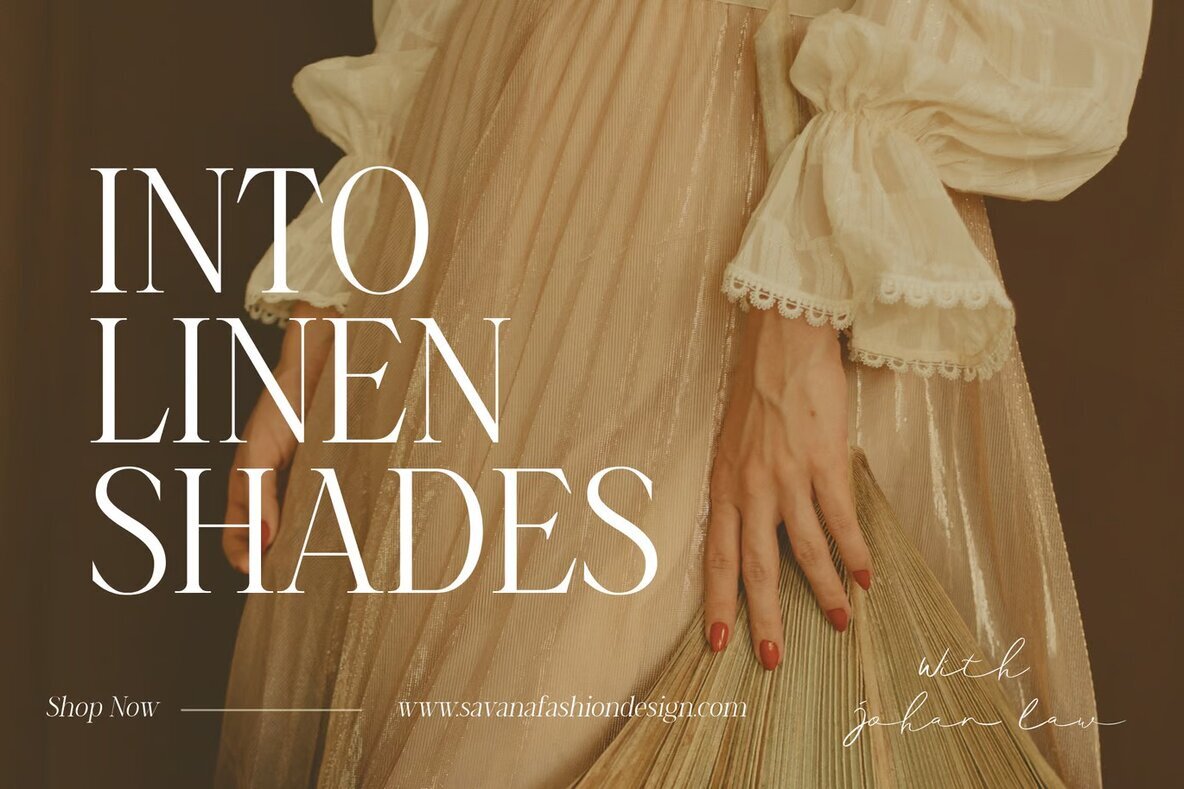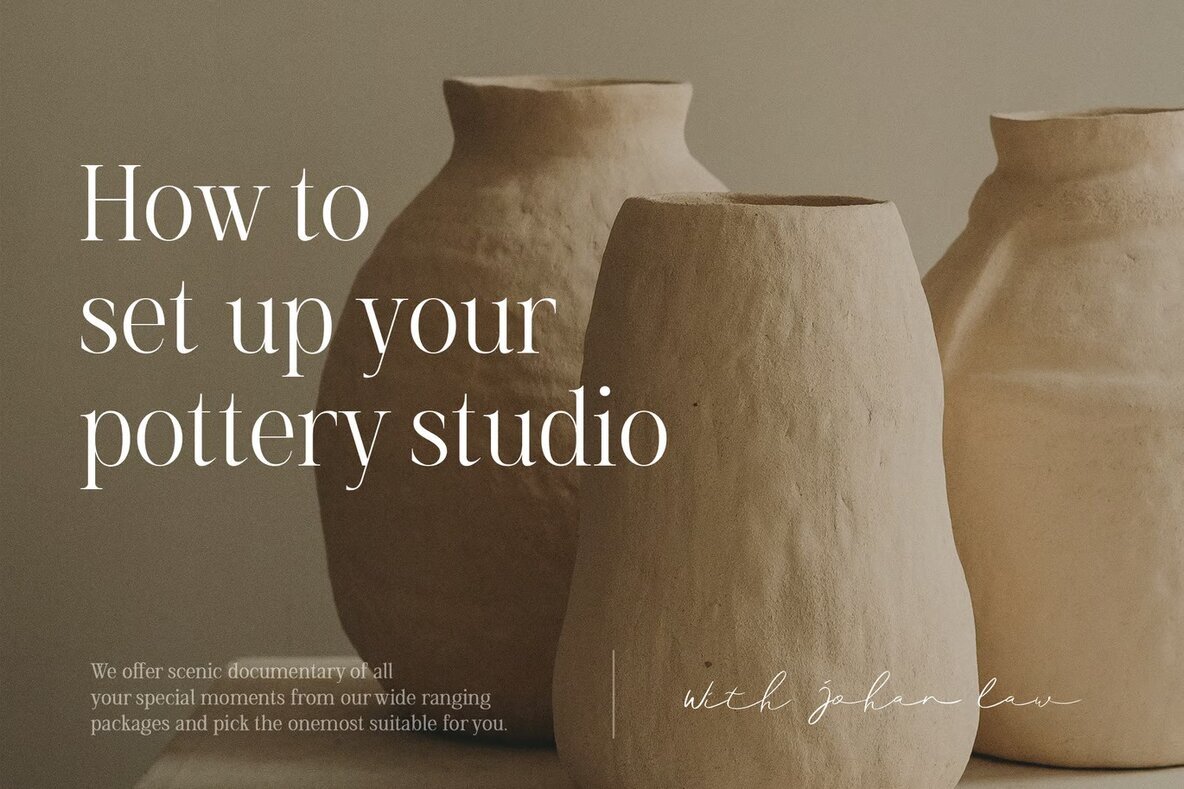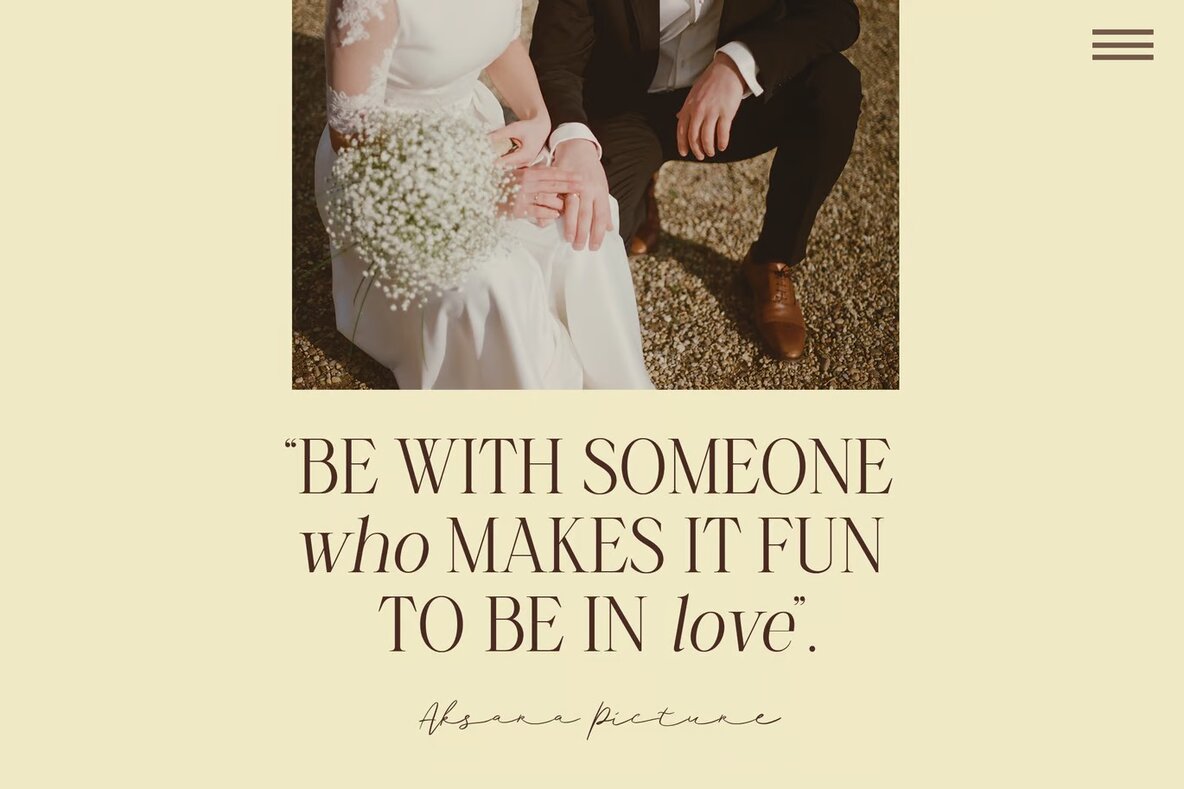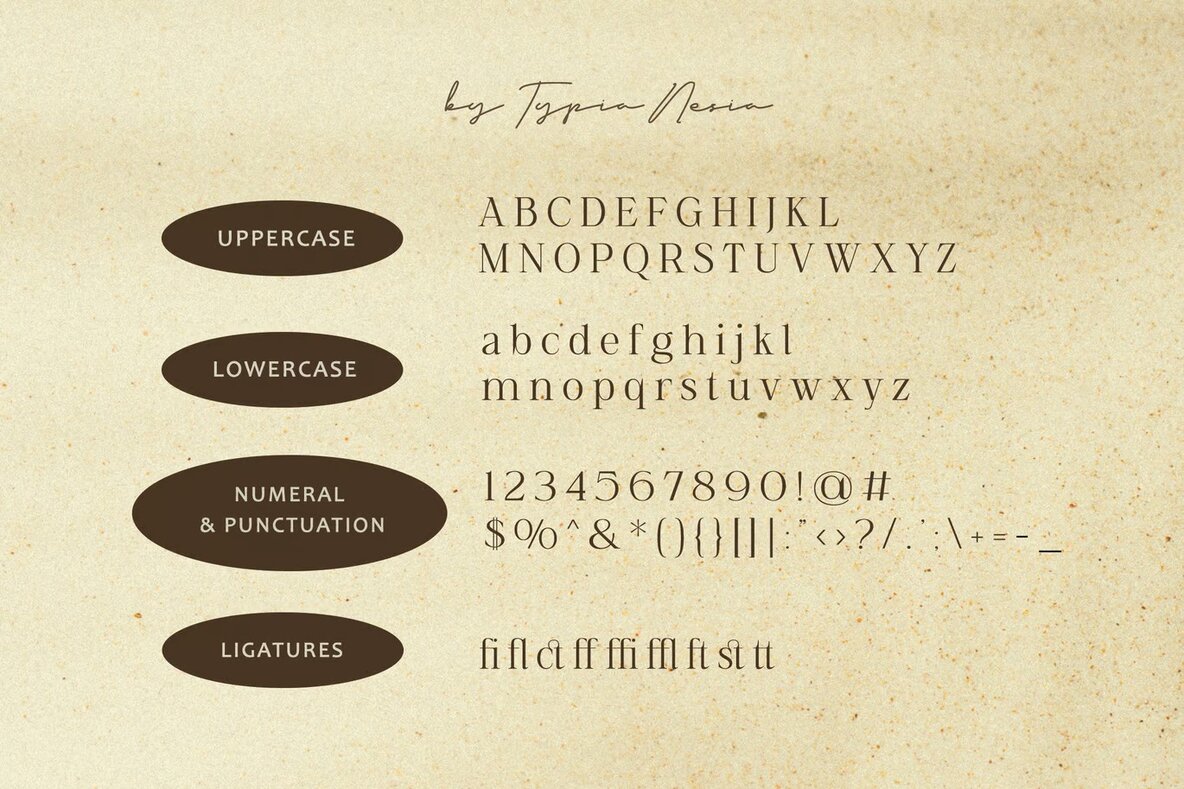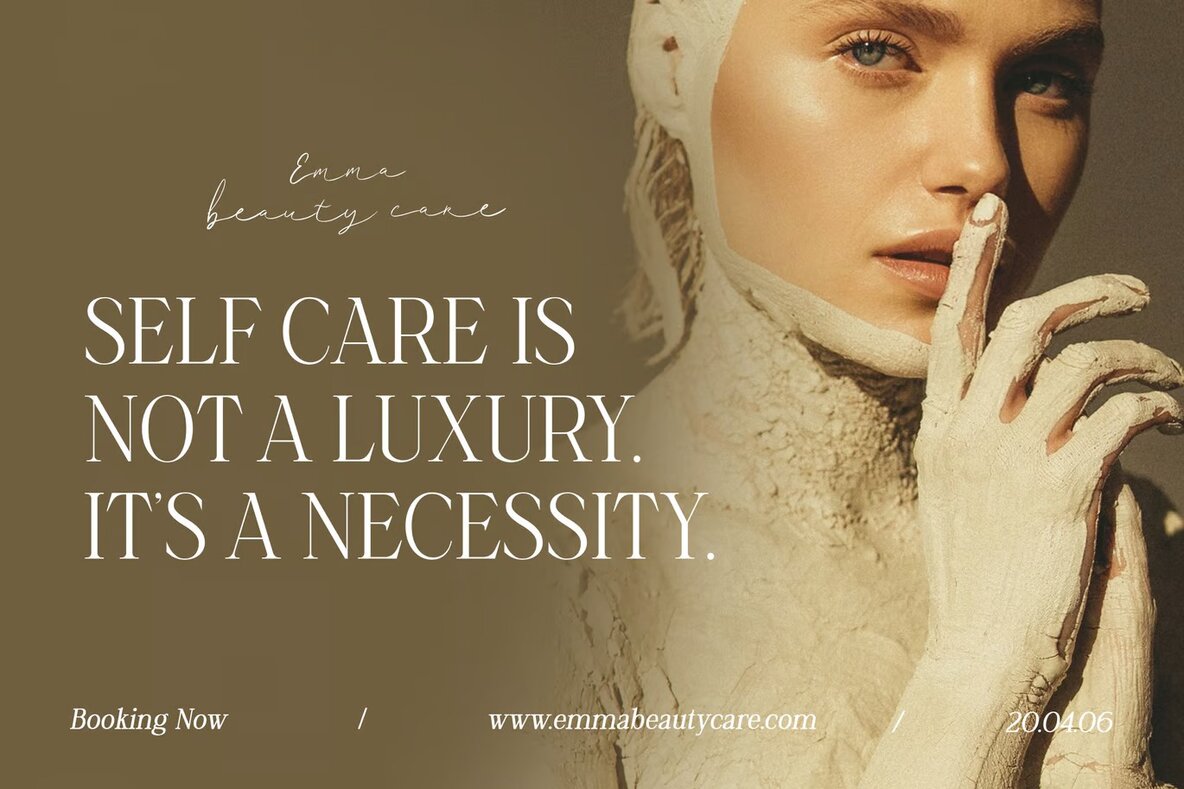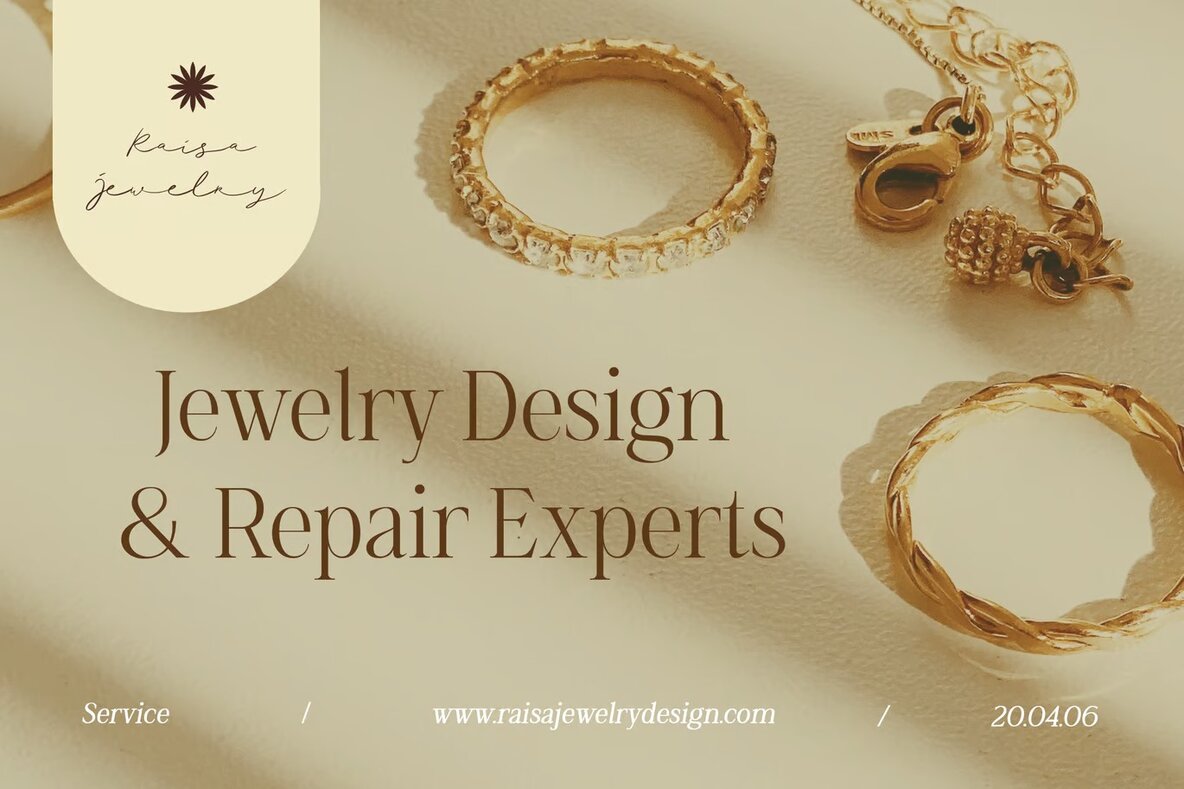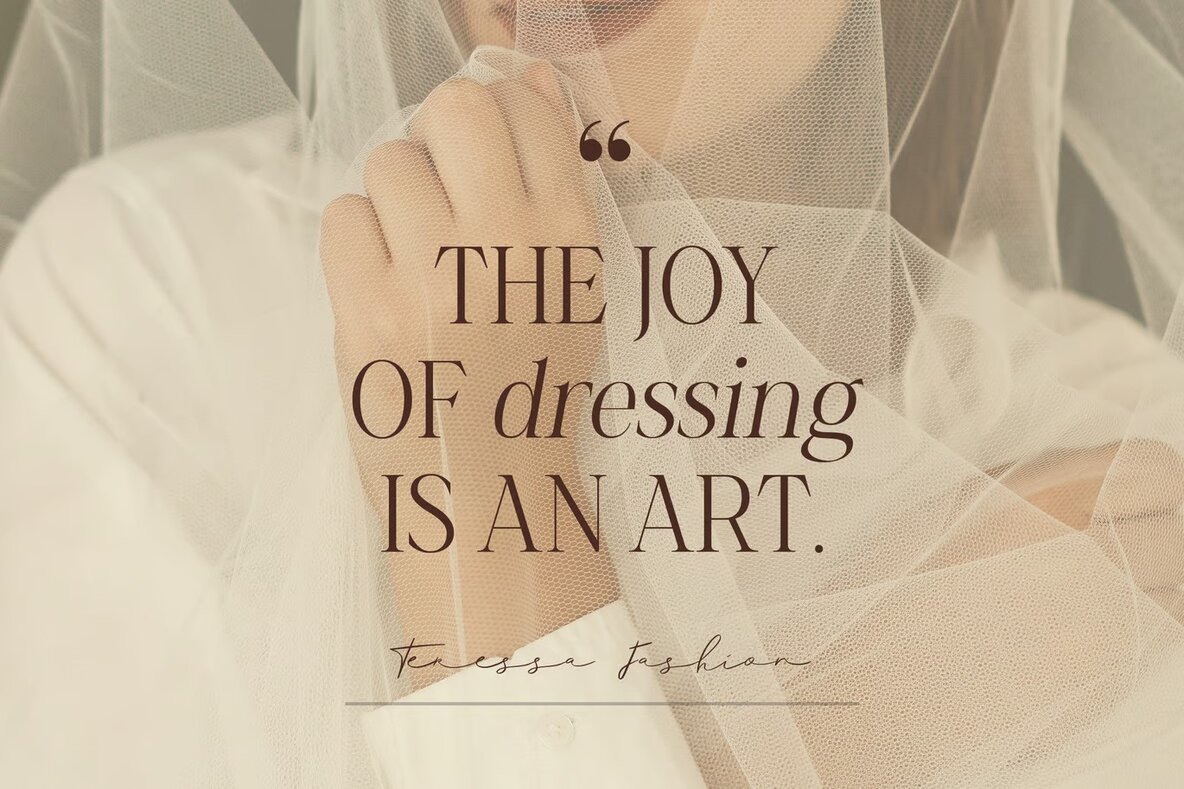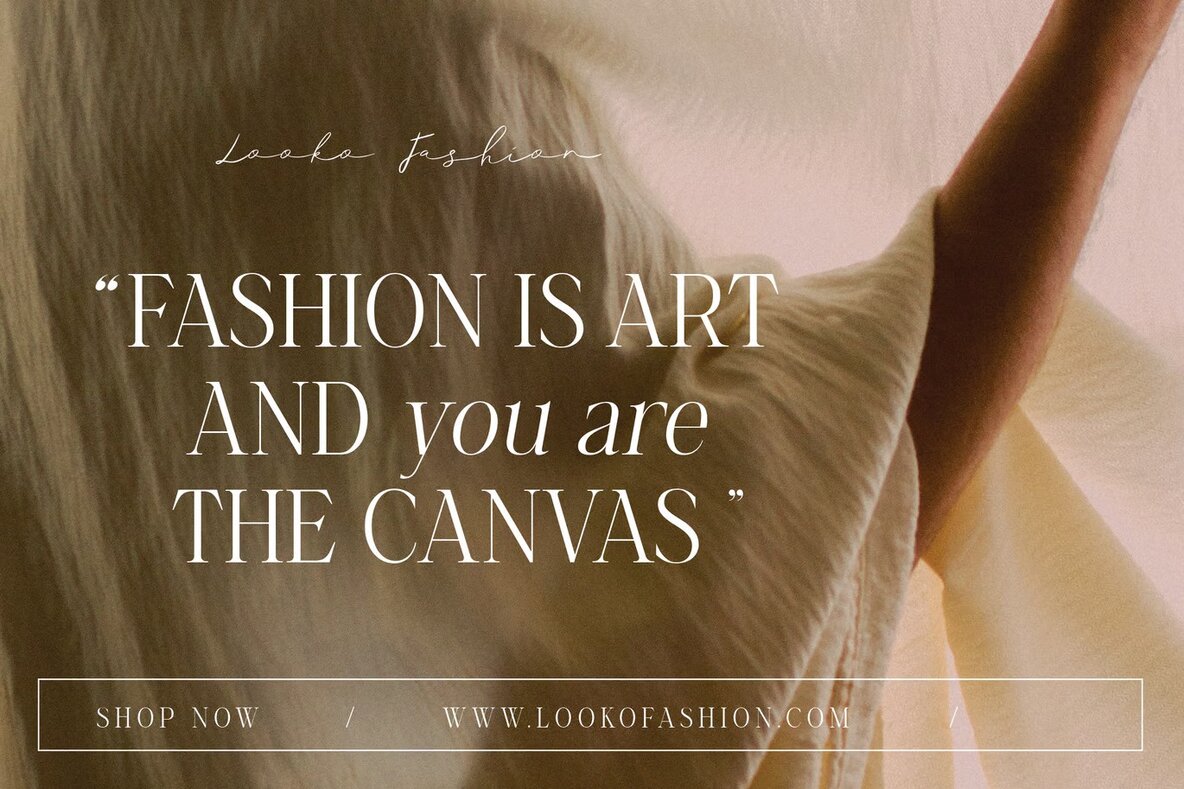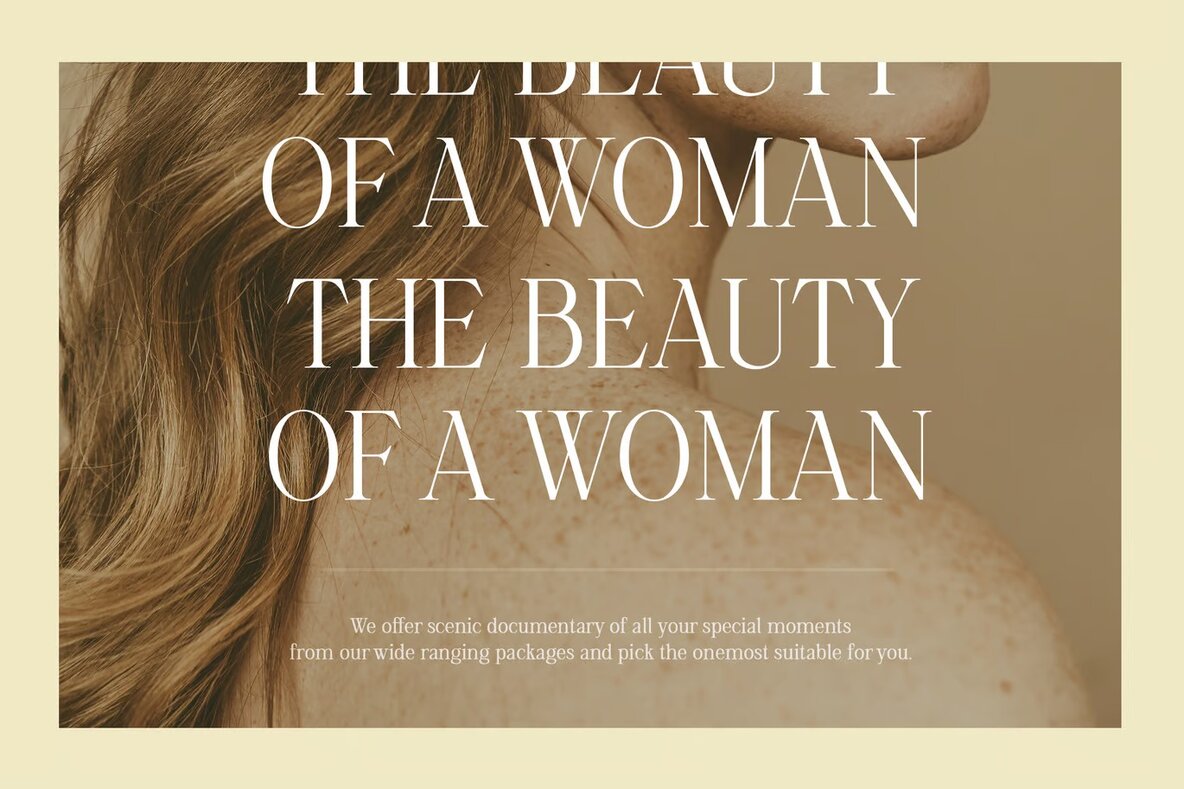
Established Font
Established Regular
Established Oblique
Introducing a sophisticated and elegant condensed serif font that brings a touch of luxury and class to a wide variety of design projects. Ideal for crafting luxury logos, branding elements, and classy editorial layouts, this font is a versatile choice for designers seeking a clean and refined aesthetic. Its graceful design makes it perfect for use in fashion promotions, art galleries, and museum branding, providing a timeless appeal that resonates with the allure of high-end markets.
This refined serif font is equally suitable for boutique and cosmetic brand identity, enhancing the elegance and femininity of your creations. It's a great fit for stationery design, blogs, and modern advertising, ensuring your content captures attention and exudes style. From book covers and special event invitations to art quotes and home decor, this font enriches your creative projects with its beauty and sophistication, making it an essential tool in the designer's toolkit.